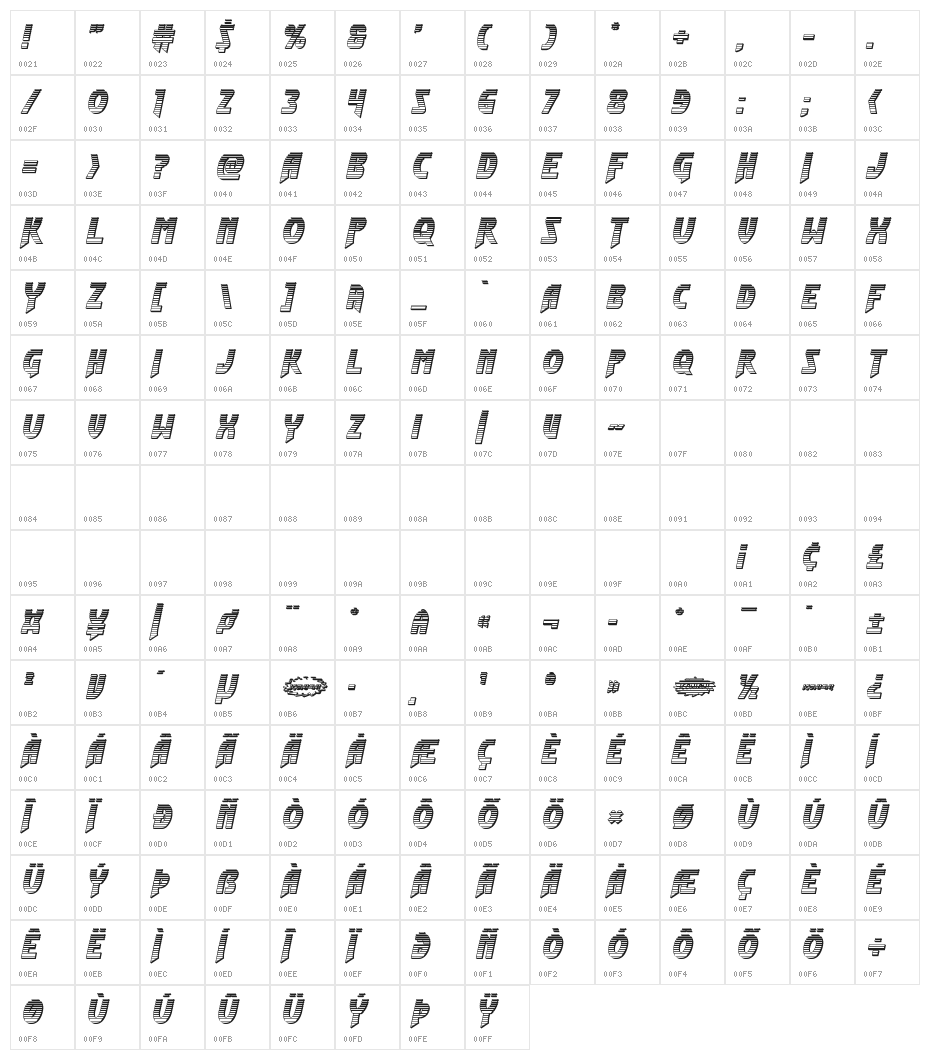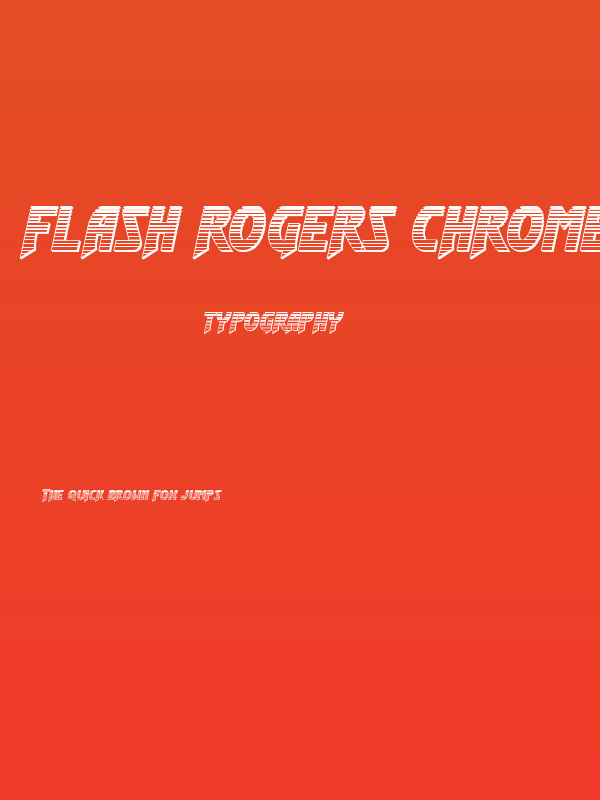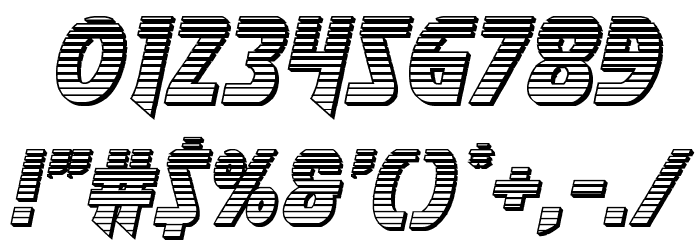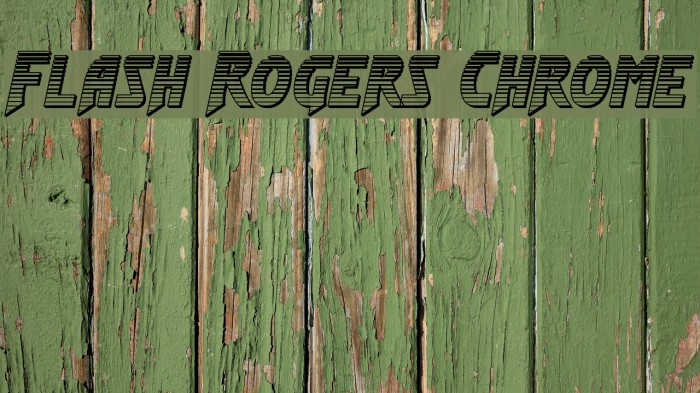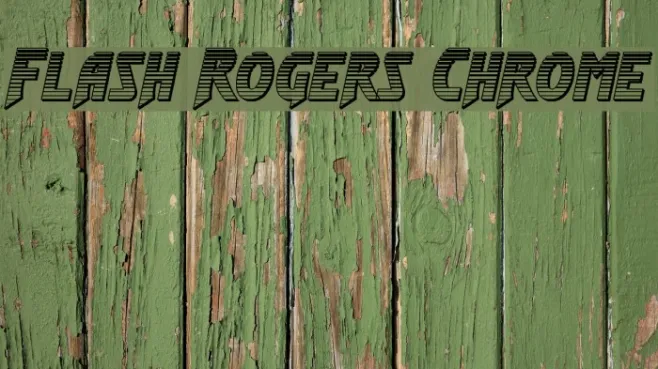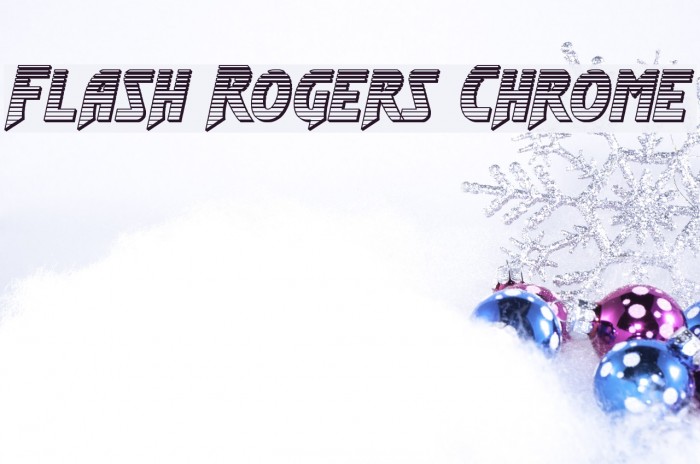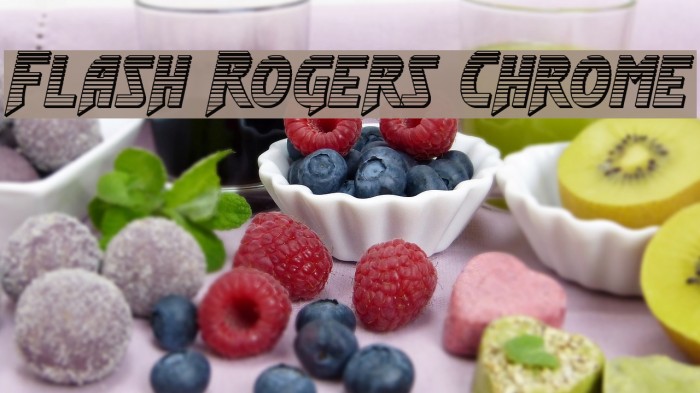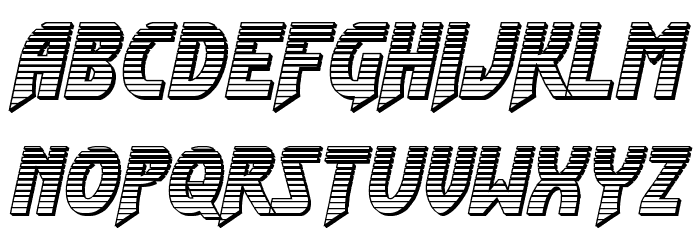
Flash Rogers Chrome Font
Flash Rogers Chrome Description
This font features a bold, dynamic design with a three-dimensional effect created by horizontal lines running through each character. The letters are angular and have a futuristic, industrial feel, reminiscent of chrome or metallic surfaces. The uppercase and lowercase letters maintain a consistent style, with sharp edges and a sense of movement. The numbers and special characters follow the same design principles, ensuring uniformity across all glyphs. This font is eye-catching and ideal for projects that require a modern and edgy aesthetic.
| Proposed Projects | Ideal for sci-fi themed posters, video game titles, tech branding, and modern advertisements. |